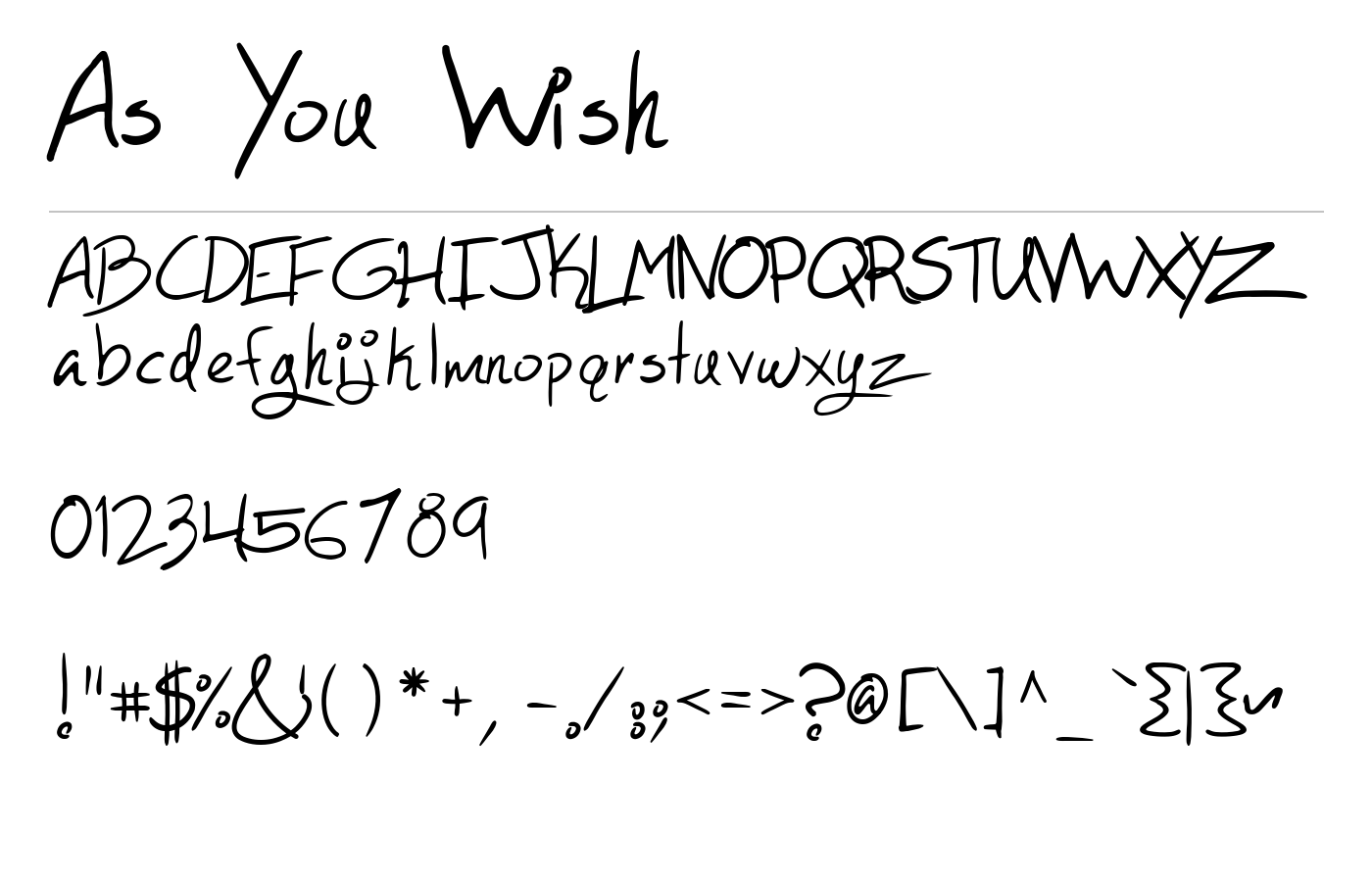
As You Wish is a casual, handwritten sans serif font that feels personal and approachable with its irregular, playful strokes and natural flow. Its light weight and tall x-height create an airy and informal look, making it ideal for friendly, creative projects like invitations, personal branding, and informal marketing materials. This font works well when you want to add a touch of warmth and individuality without sacrificing legibility.
As You Wish Font
About As You Wish Font
| Font family | As You Wish Font |
| Designer | Matthew Tyndall |